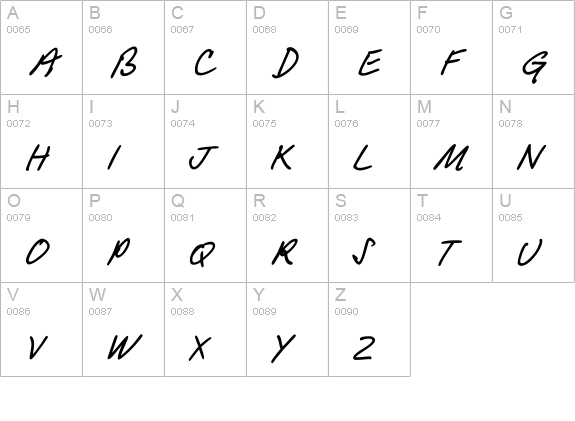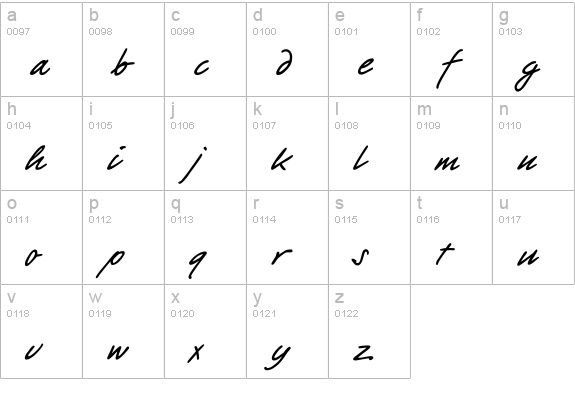
Barguzin Script Font Details
The Barguzin Script font is a beautifully crafted typeface that exudes elegance and sophistication. Its flowing lines and graceful curves make it perfect for a variety of design projects, from wedding invitations to branding materials. With its unique blend of modernity and classic charm, Barguzin Script brings a touch of luxury to any piece of work. What makes Barguzin Script even more appealing is that it is available for free download at FontsMarket.com. This means that you can easily incorporate this stunning font into your projects without any cost. Whether you are a professional designer or a DIY enthusiast, Barguzin Script is a valuable addition to your font collection. Don't miss out on the opportunity to enhance your designs with this exquisite typeface - download Barguzin Script today and elevate your creations to new heights!